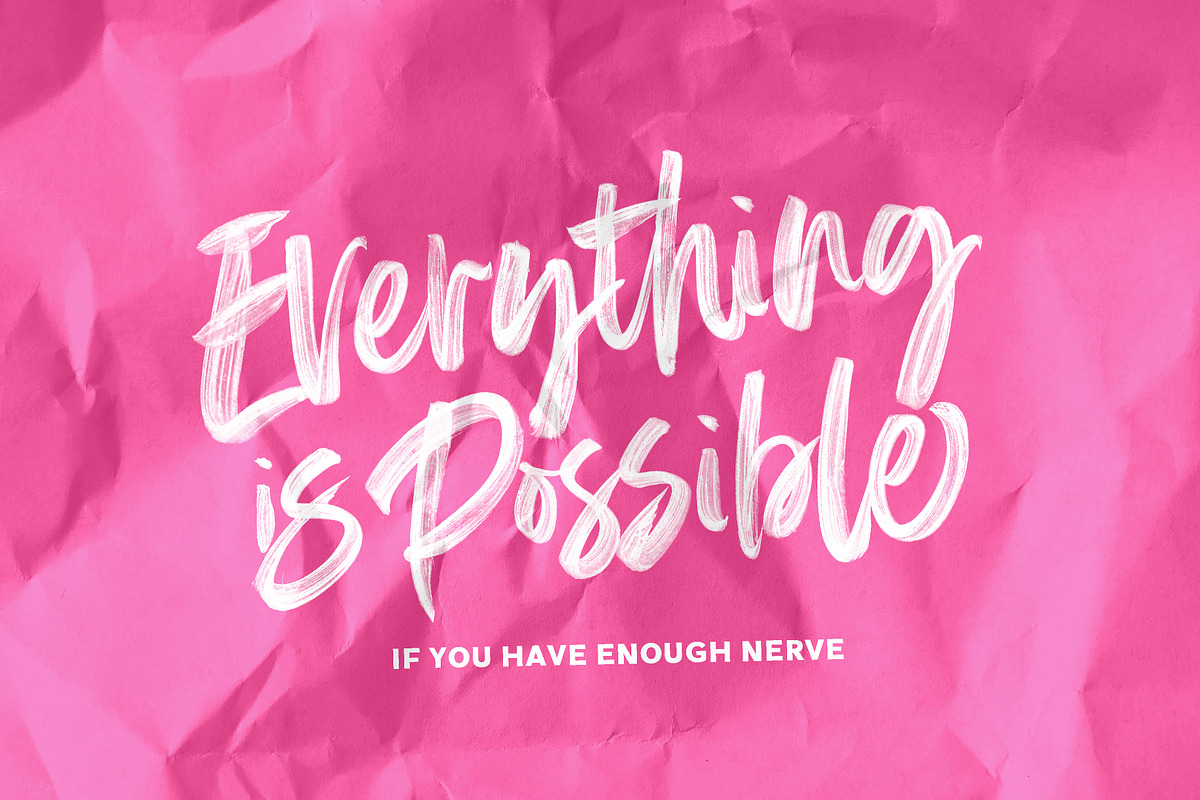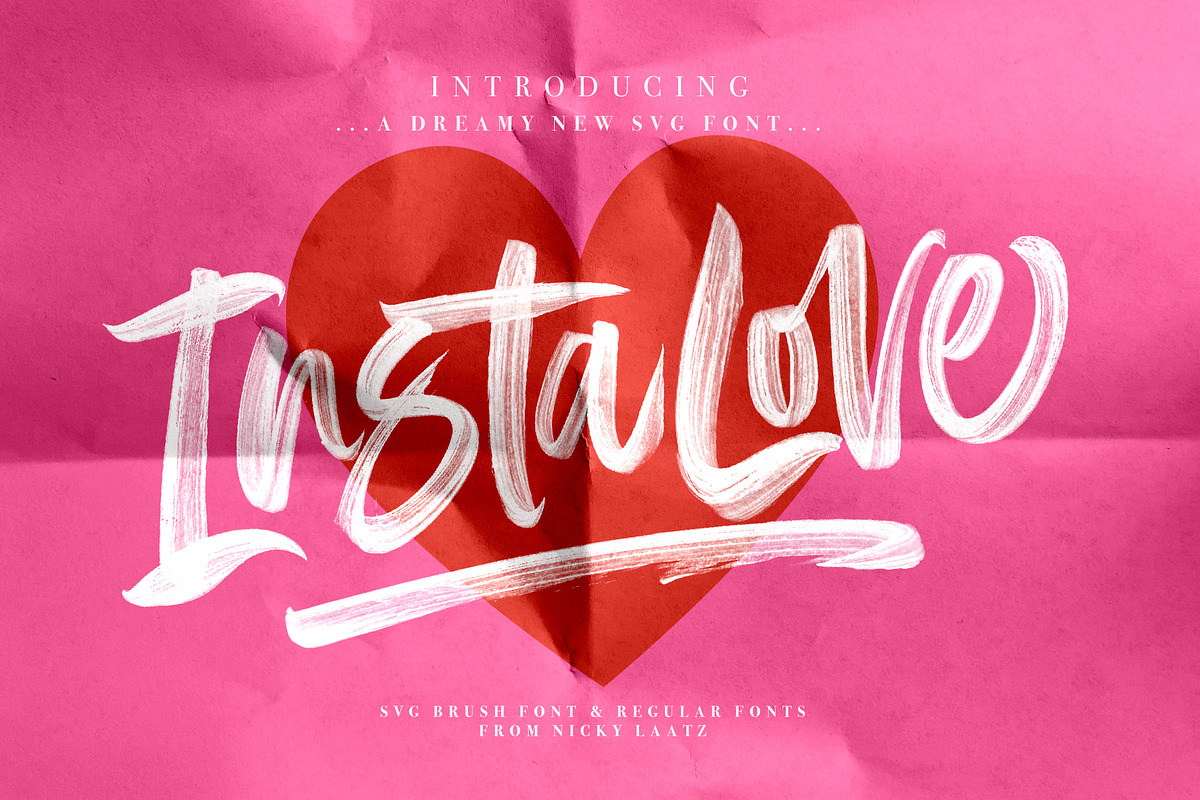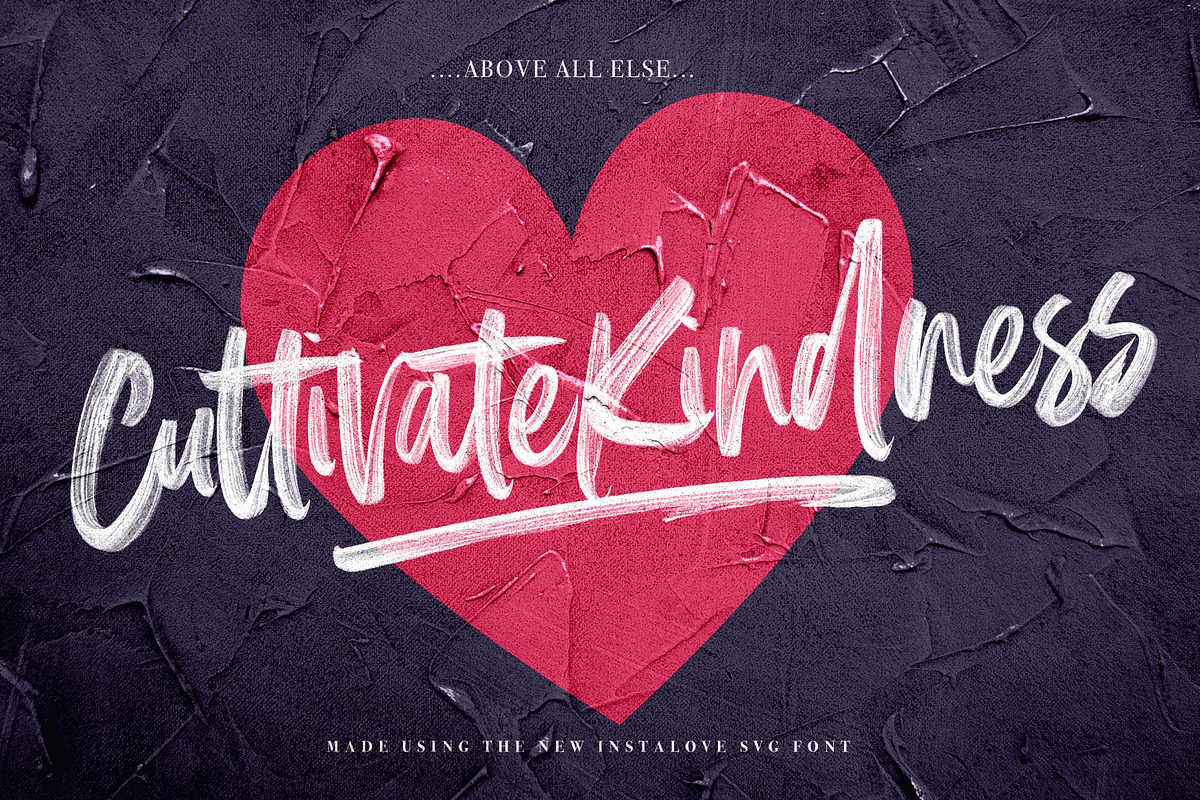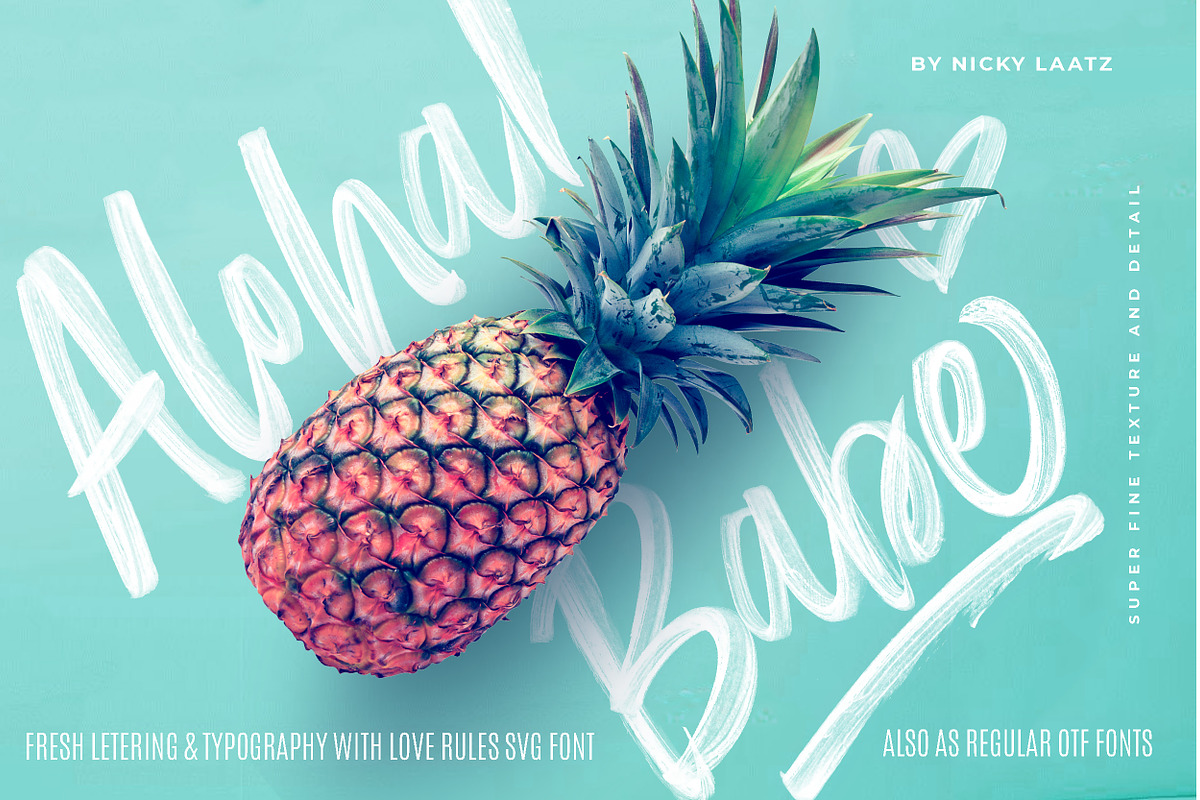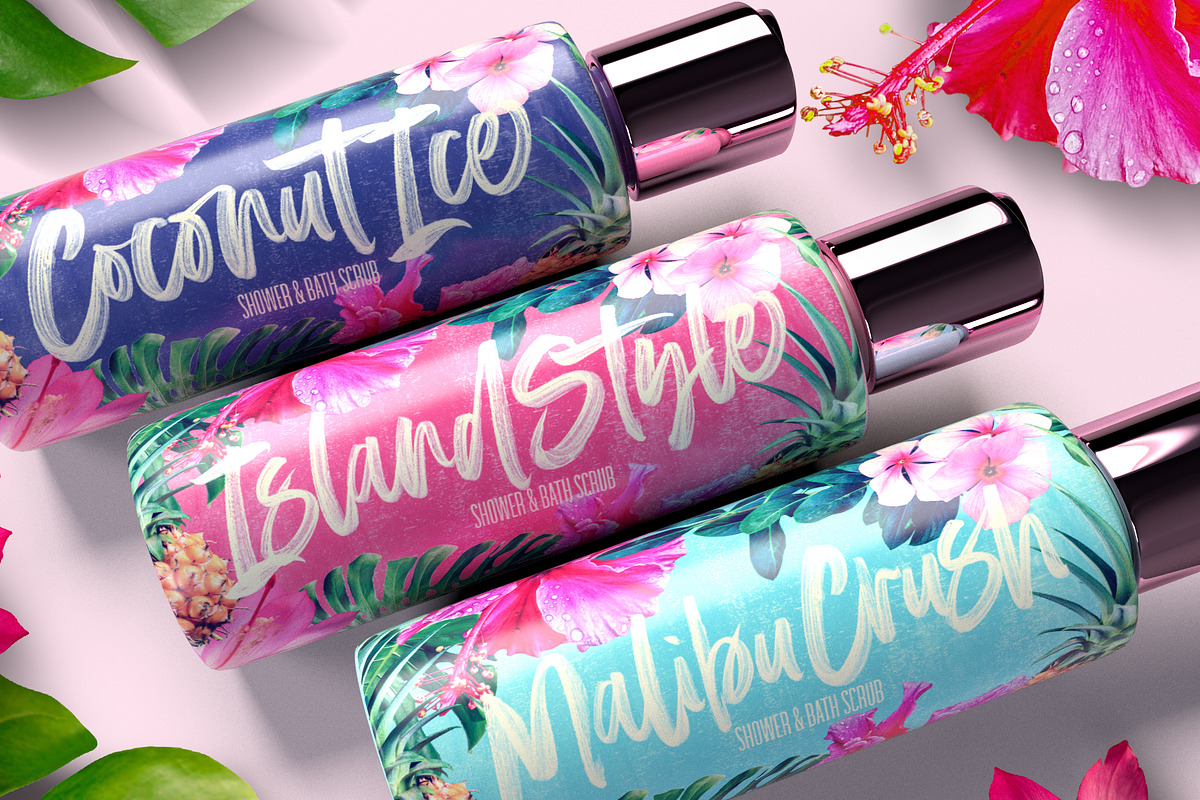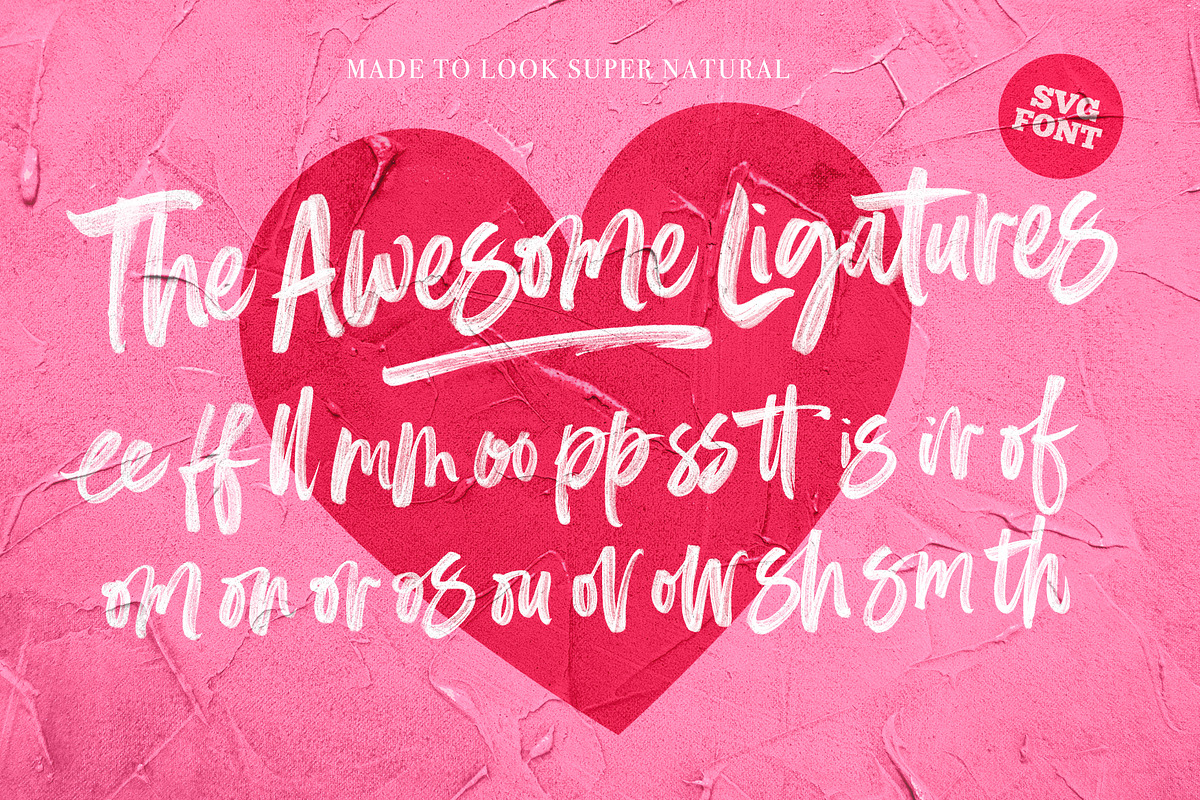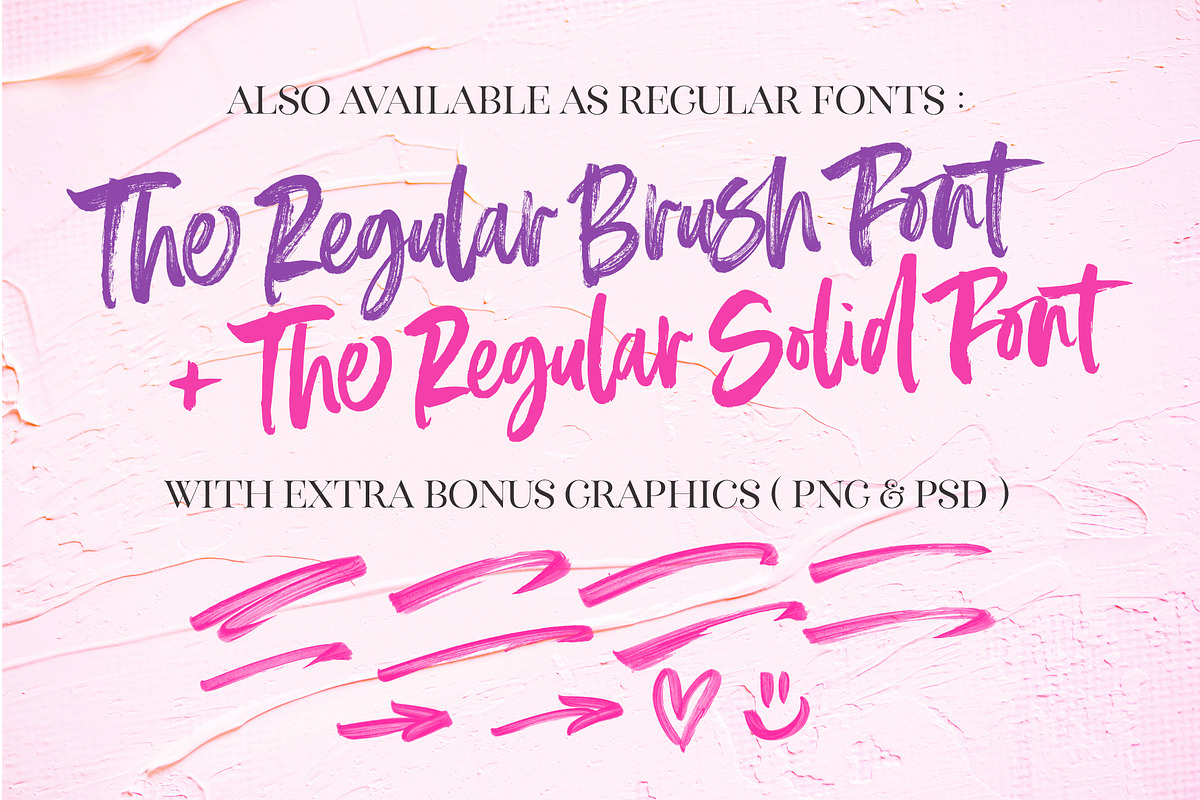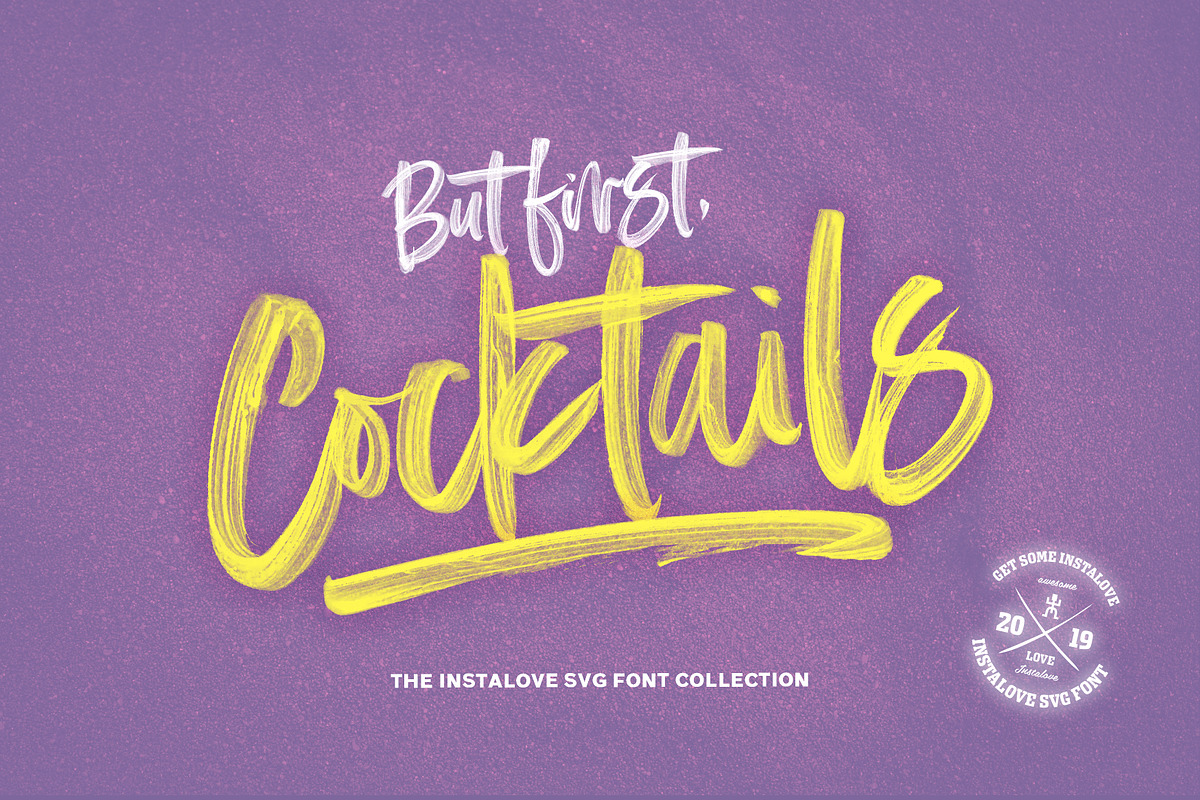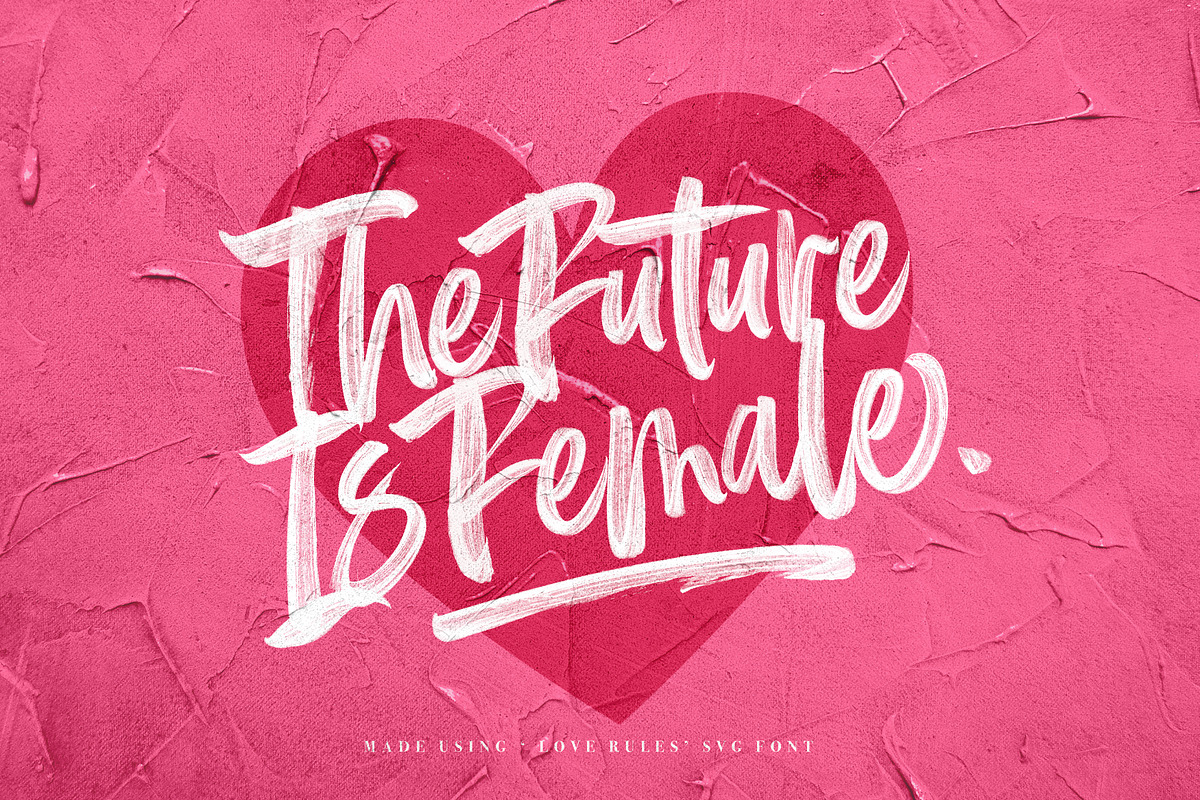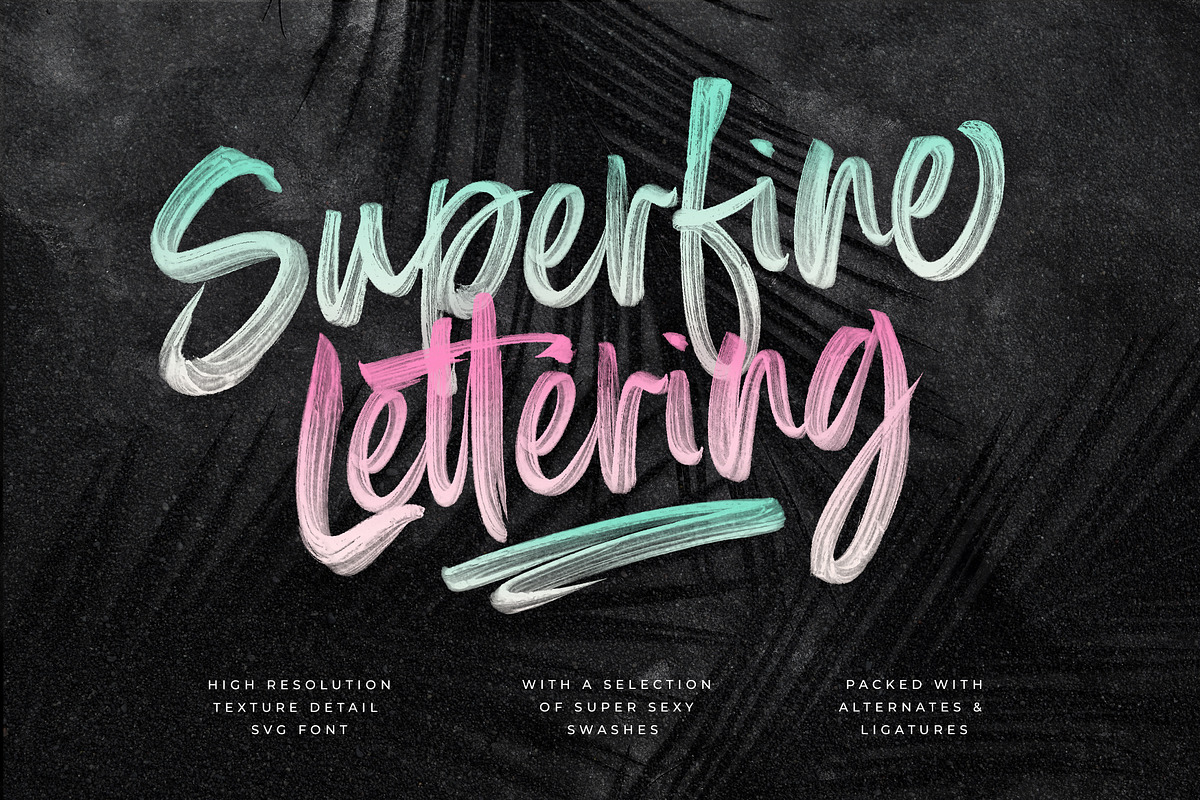
InstaLove SVG Font
Ultrasmooth and deliciously bold, the InstaLove SVG Brush font is loaded with alternates and natural looking ligatures. Fresh and full of character - InstaLove leaves good vibes wherever it goes.
Love the style - but need a vector version? No problem! Regular Opentype font versions are also included for you.
1.) THE INSTALOVE SVG FONT which includes :
LETTER ALTERNATES : It includes a full set of uppercase alternate letters , and an even bigger selection of lowercase alternate characters, to make your designs look more natural and less like a font.
LIGATURES - The Script comes with a set of natural looking ligatures for common letter combinations that are inserted automatically as you type.
2.) THE INSTALOVE Regular Brushed Opentype Font
- A Standard Font (.otf) of the SVG Script font - maintaining a vector brush texture. It includes all alternates and ligatures included in the SVG font.
3.) THE INSTALOVE Regular Solid Opentype Font
- A Standard Font of the SVG Script font - maintaining a vector brush edge but with a solid fill. It includes all alternates and ligatures included in the SVG font.
4.) A set of handy Decorative Swashes,
6.)THE INSTALOVE Extra Characters SVG FONT which includes :
- Special SVG Language support Characters : ˚ ˇ ˆ ˘ ˜ ´ ¨ ¸ ß ,Ø,Æ, Œ, œ, ø, æ as well as the lesser used brackets { } and [ ].